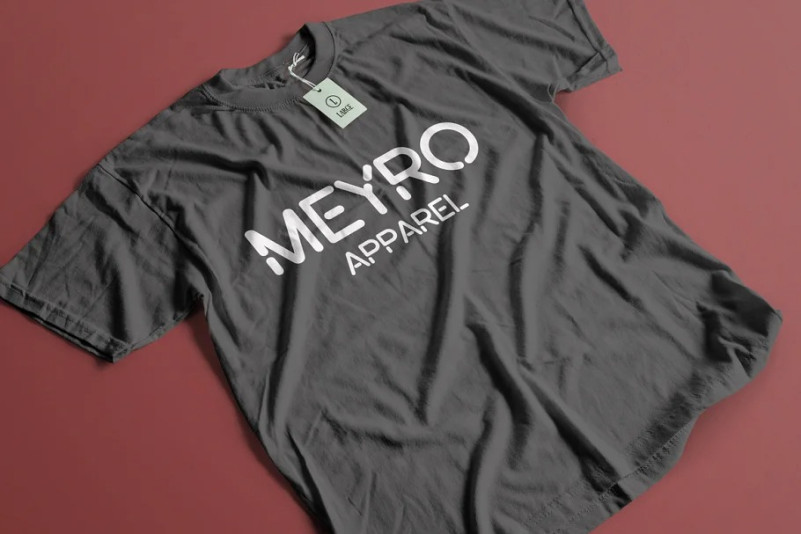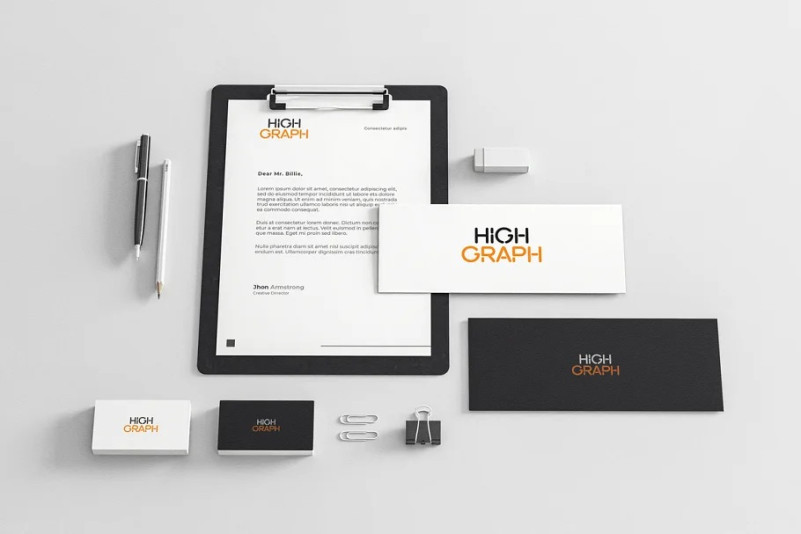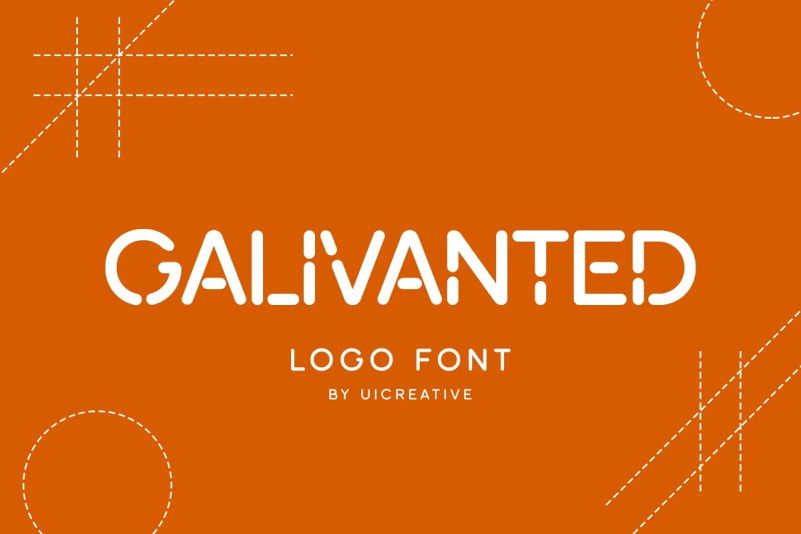
Galivanted Font
Galivanted Font – Logo Stencil Sans Serif. Modern Serif font that feels beautiful classy, elegant, and modern. This font is ideally suited for a wide variety of projects, such as signature, stationery, logo, wedding, typography quotes, magazine or book covers, website headers, clothing, branding, packaging design, and more. Also, fashion-related branding or editorial design displays both masculine and feminine qualities.